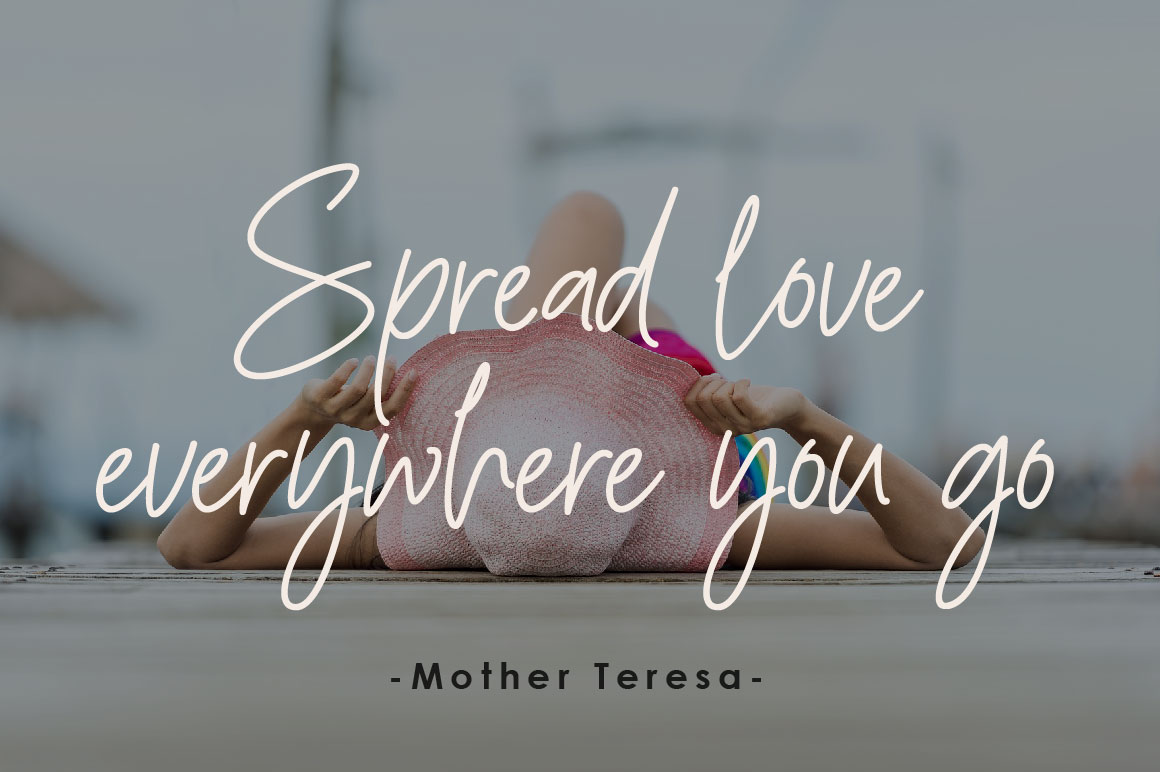
Richella is a sweet and cursive handwritten font. This gentle font will look gorgeous on a variety of design ideas. It will add a joyful and romantic touch to each of your projects!
Richella font comes with uppercase, lowercase, numerals, punctuations, alternate, ligatures, and multilingual support.